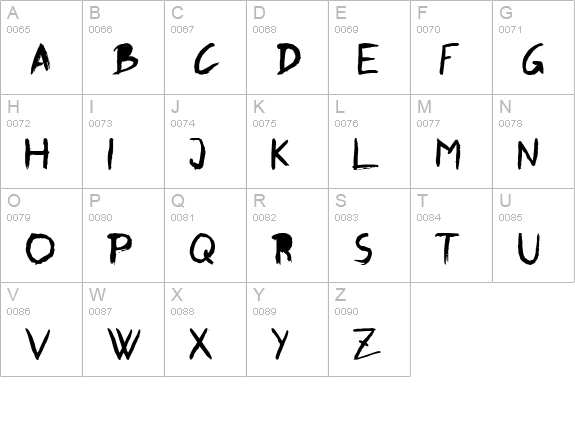
Introducing Graffito, a one-of-a-kind font that exudes urban flair and artistic expression. This captivating typeface pays homage to the rebellious nature of graffiti art, bringing its vibrant energy and edgy style to your designs. With its bold strokes and intricate details, Graffito adds a touch of urban grit to any project. What sets Graffito apart is not only its impeccable design but also its accessibility. This font is freely available to download at FontsMarket.com, allowing designers, artists, and enthusiasts alike to unleash their creativity without any limitations. Whether you're working on a street art-inspired piece, a poster for a hip event, or simply want to add an urban twist to your branding, Graffito is the perfect choice. With a wide range of characters, including uppercase and lowercase letters, numerals, punctuation, and special symbols, Graffito offers endless possibilities for customization. Its versatile nature allows you to experiment with different letter combinations, creating a truly unique and personalized typographic experience. Graffito's seamless integration with various design software makes it a breeze to incorporate into your projects. From digital designs to print materials, this font ensures that your message is conveyed with the same boldness and impact as the graffiti art it draws inspiration from. So, if you're ready to break free from the constraints of traditional typography and embrace the raw energy of graffiti, look no further than Graffito. Download this font for free at FontsMarket.com and let your creativity run wild. Unleash your inner rebel and make a statement with Graffito, the font that embodies the spirit of urban artistry.